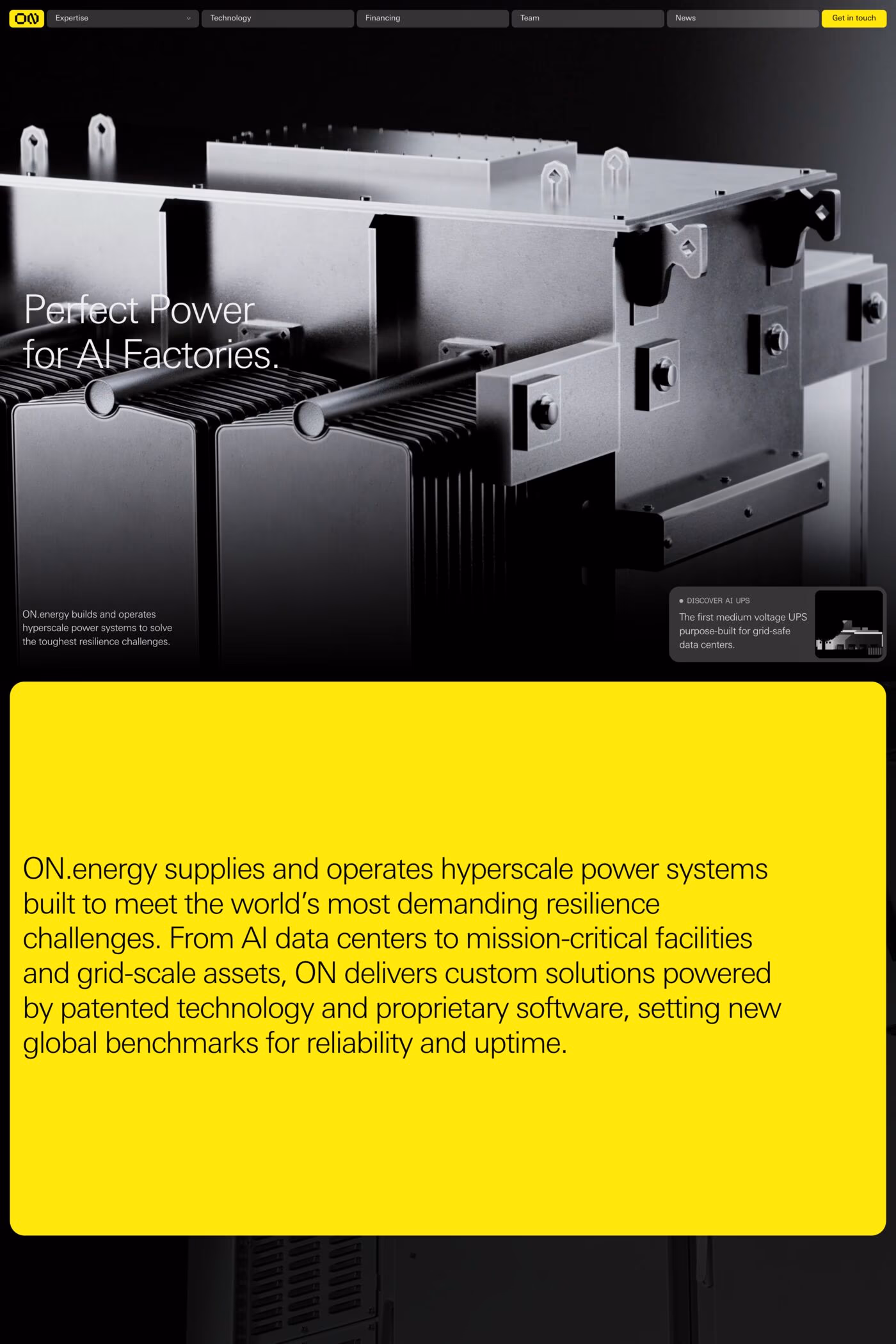
Univers is a sans-serif typeface from Linotype.
The font family Univers? is one of the greatest typographic achievements of the second half of the 20th century. The family has the advantage of having a var...
A1 features 2 websites using Univers, including Victoria Gee and ON.energy. They lean towards Photography, Sans-serif, and Minimal design styles, and they’re most often built with Wordpress and Nuxt.